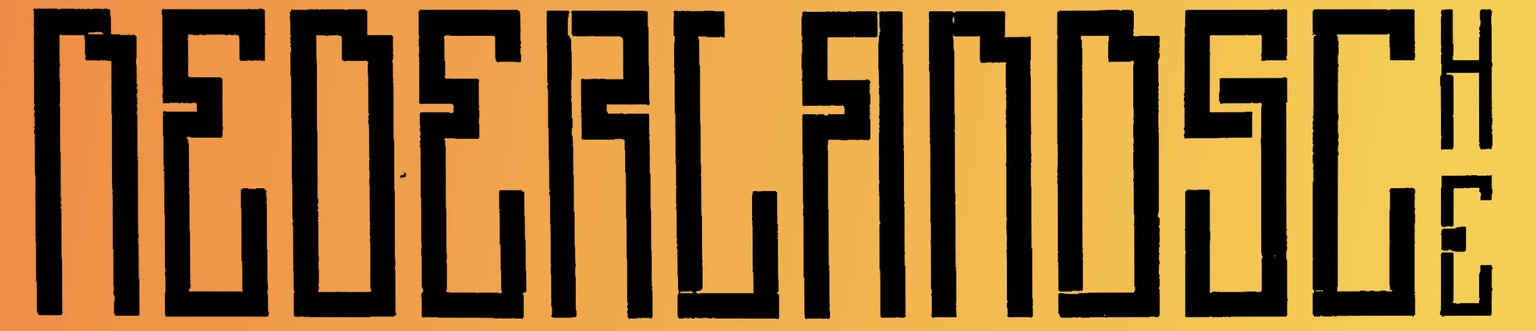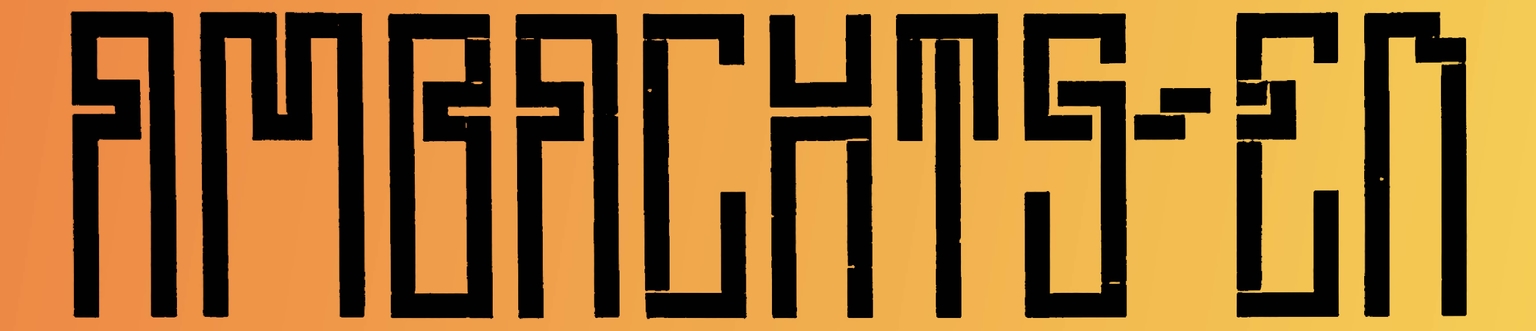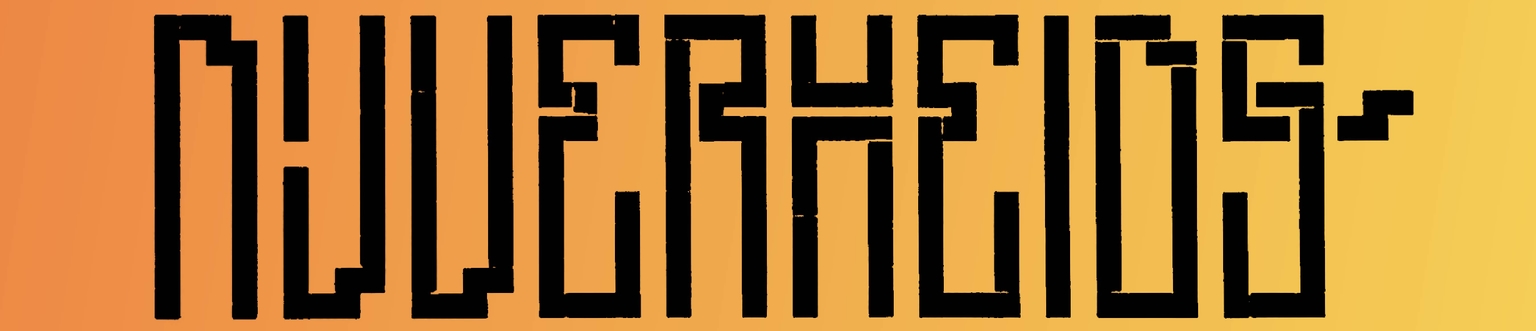
Kuryakin
Kuryakin is a modular display typeface designed by Ramiro Espinoza and inspired by the geometric lettering models developed by Dutch architect and theorist J. L. Mathieu Lauweriks. Known for his systematic and spiritual approach to design, Lauweriks created alphabets based on grids and proportional systems—letterforms that feel both rational and mystical, echoing early 20th-century efforts to unify art, architecture, and typography.
Espinoza’s Kuryakin builds on this legacy, transforming Lauweriks’ abstract models into a usable and striking typeface. With its reduced legibility, modular construction, square rhythm, and abstract elegance, it’s ideal for posters, exhibition graphics, museum exhibitions, and branding projects that seek a challenging, historical edge.
The name Kuryakin is a playful nod to The Man from U.N.C.L.E., a cult TV series that captivated Argentine audiences in the 1970s. Much like its namesake, Kuryakin blends precision with flair, structure with intrigue—now available through Brutal Types.
Designer
Ramiro Espinoza